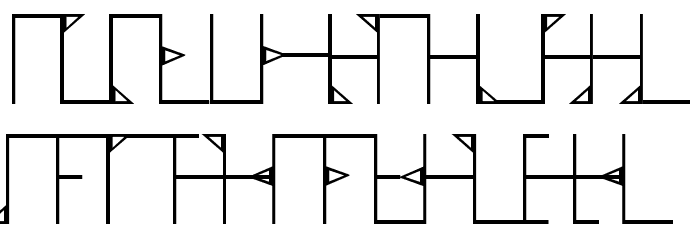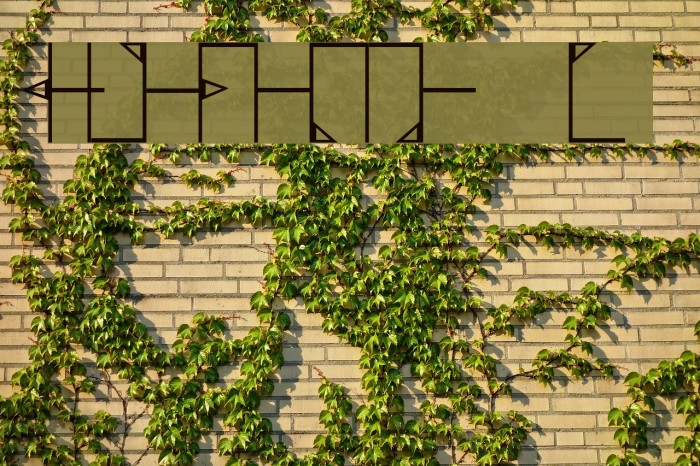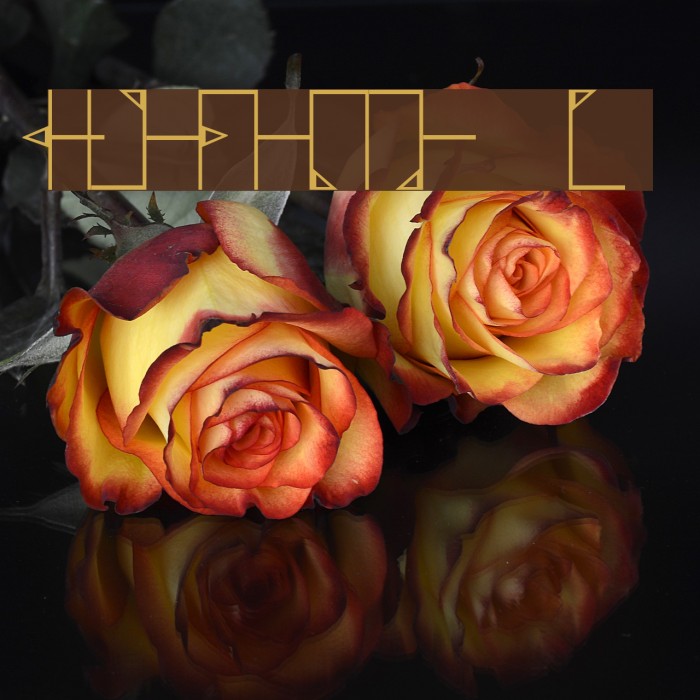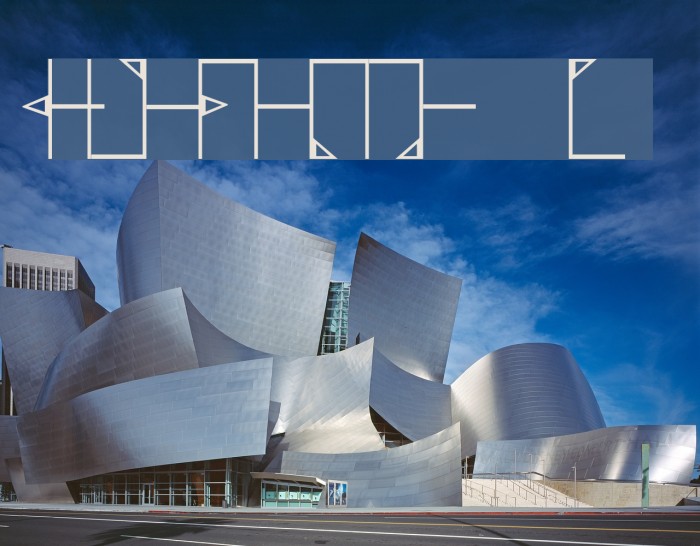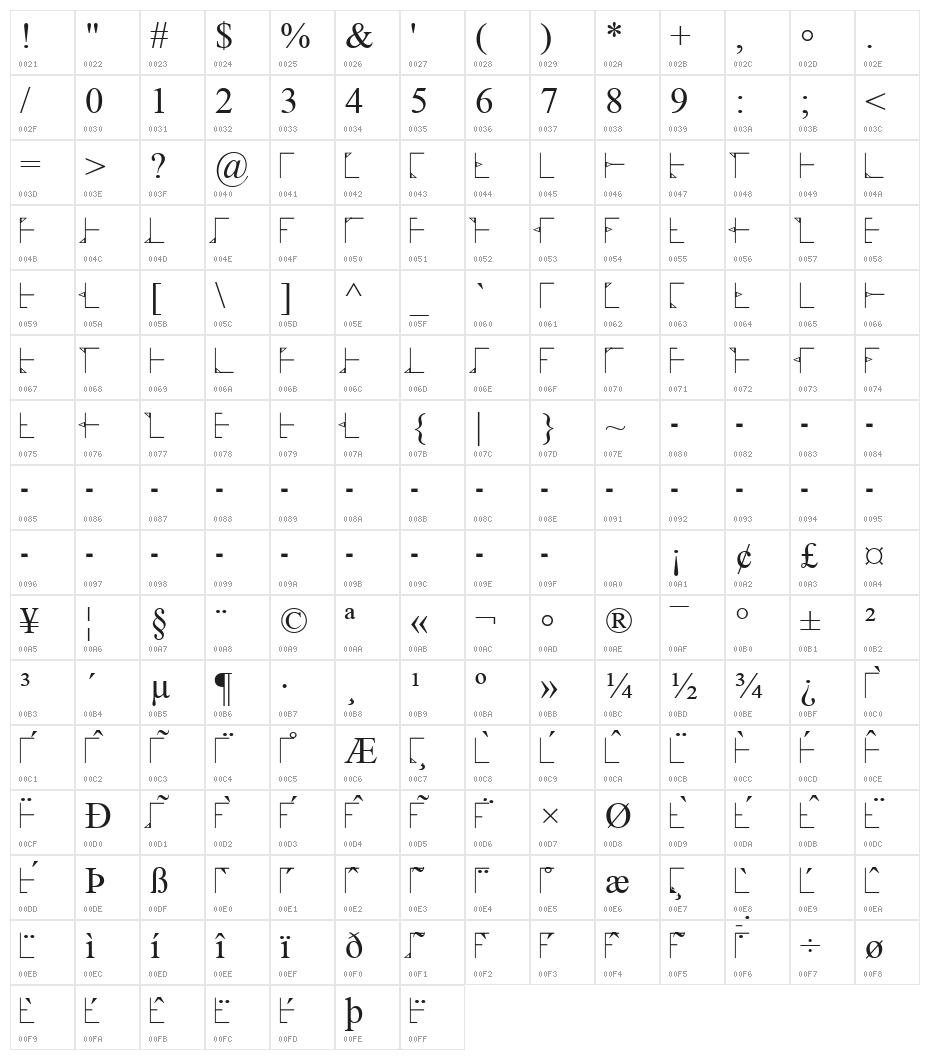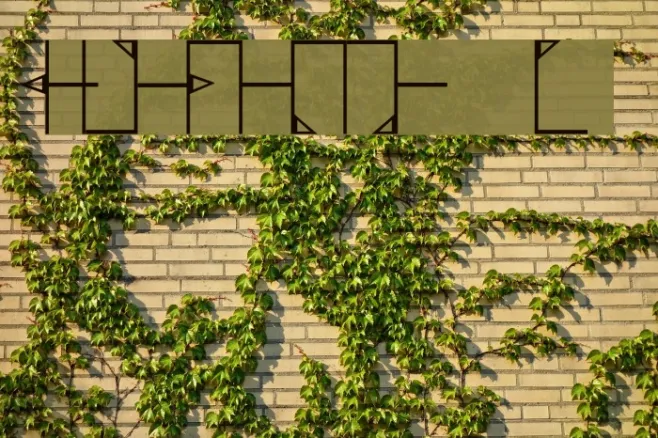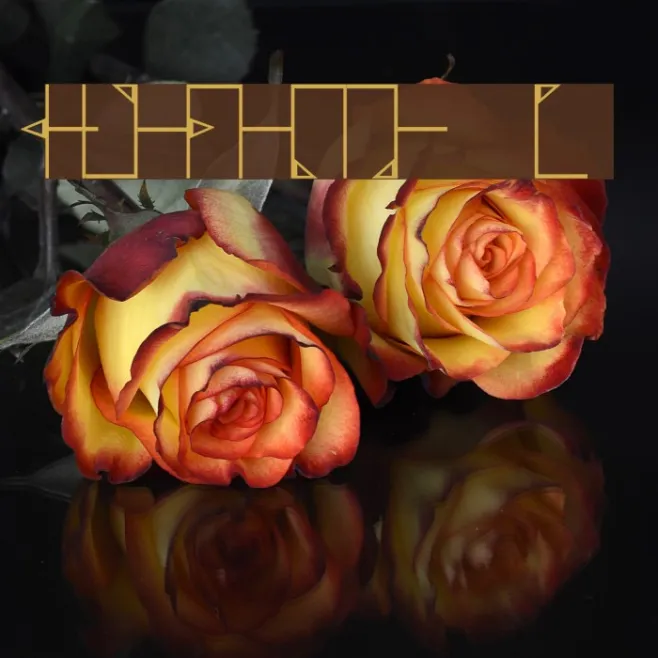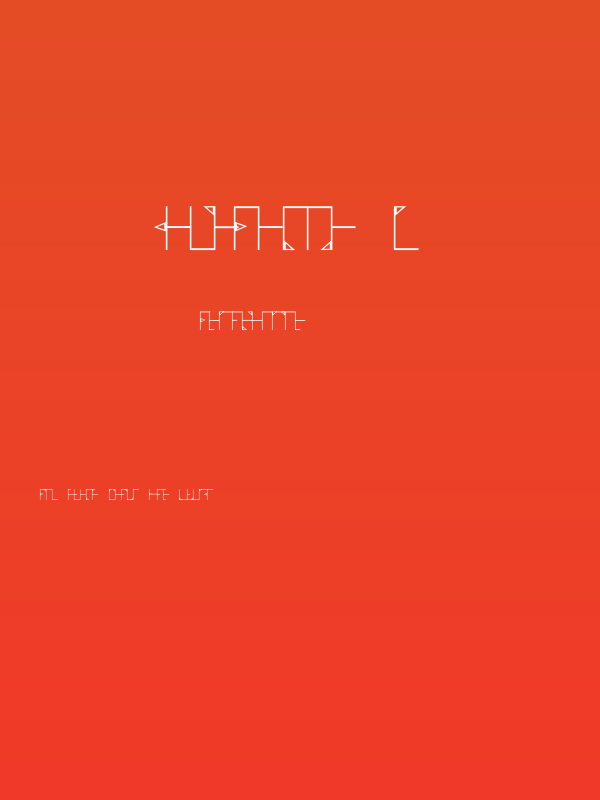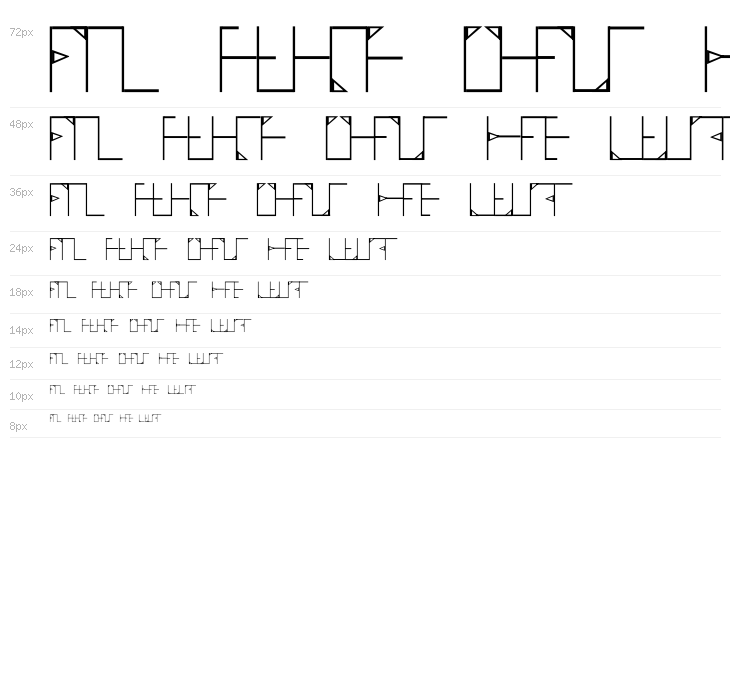
Vertical B Font
This font features a unique and intricate design, characterized by its geometric and angular shapes. The uppercase letters are composed of vertical and horizontal lines with sharp angles, creating a futuristic and abstract appearance. The lowercase letters maintain this geometric style but are slightly more condensed. The numerals are bold and clear, providing a strong contrast to the more complex letterforms. Special characters are also designed with the same angular and geometric style, ensuring consistency throughout the font. This font is highly decorative and would be best suited for projects that require a modern and avant-garde aesthetic.
A geometric and angular font with a futuristic and abstract design.
- Proposed Projects: Ideal for modern art projects, futuristic branding, sci-fi themed events, and avant-garde posters.